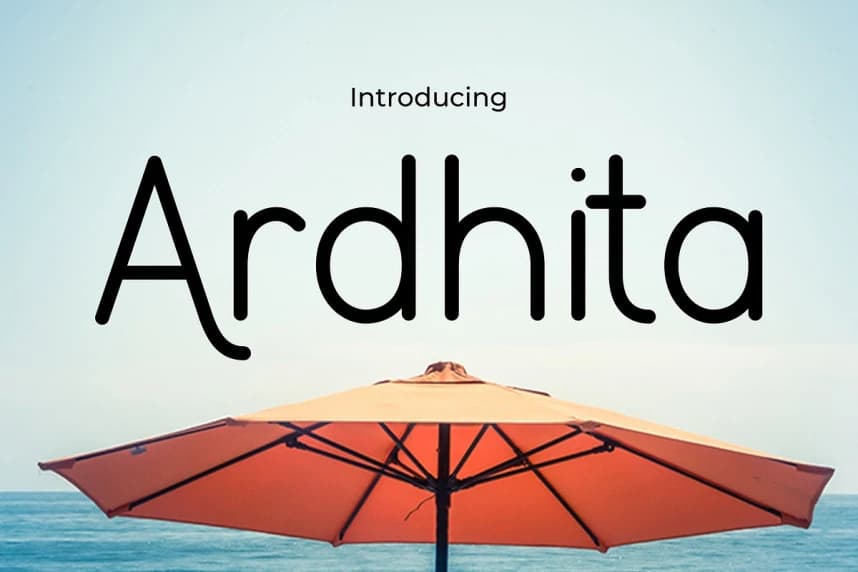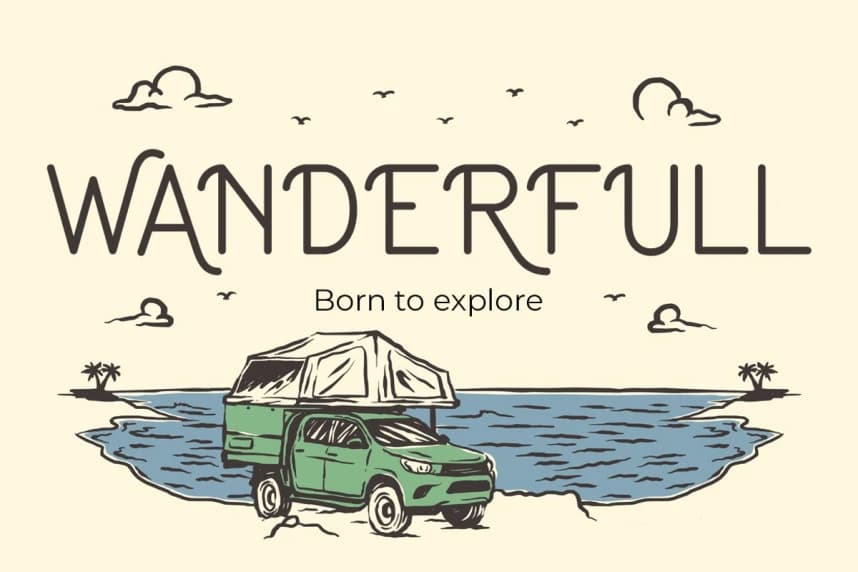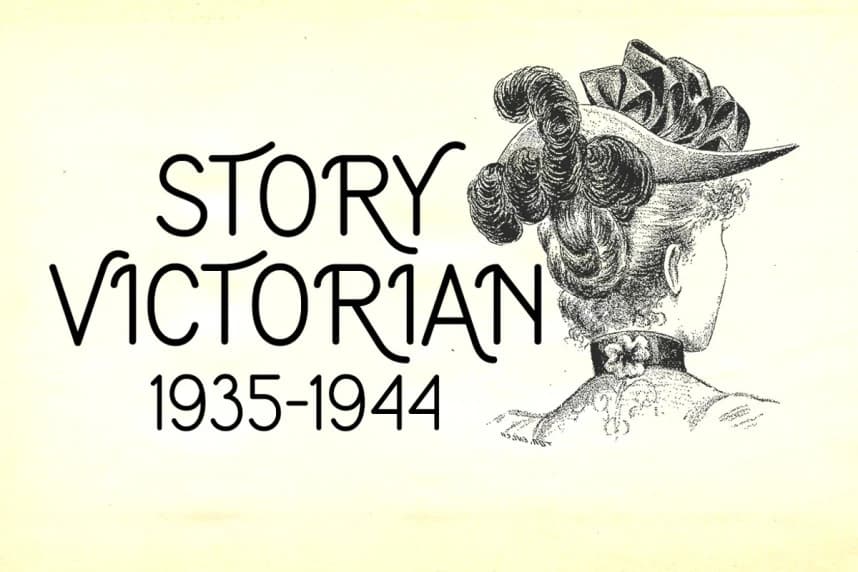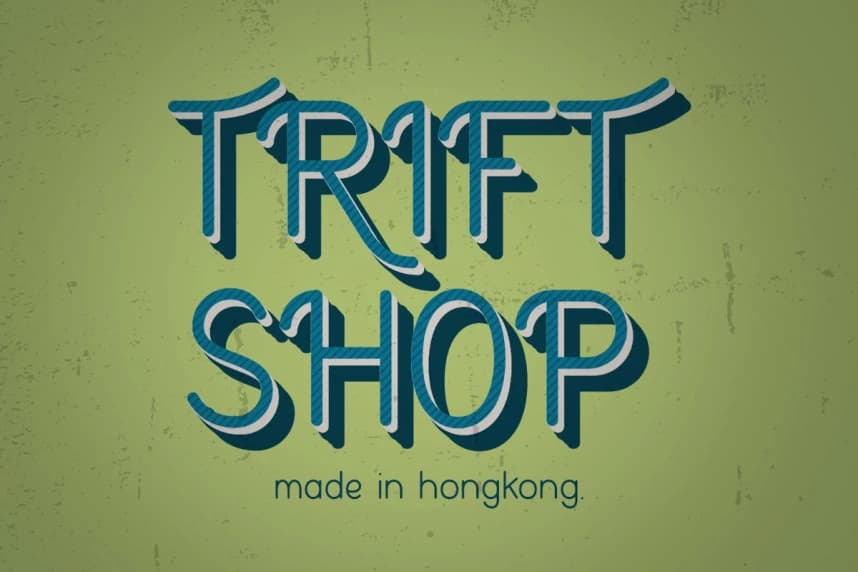
Ardhita Font
Ardhitā Font, a font of timeless elegance and classic vintage allure, beckons with its meticulously crafted details and ornate flourishes. With a grace reminiscent of bygone eras, it offers a touch of refined nostalgia, making it an ideal choice for luxury branding